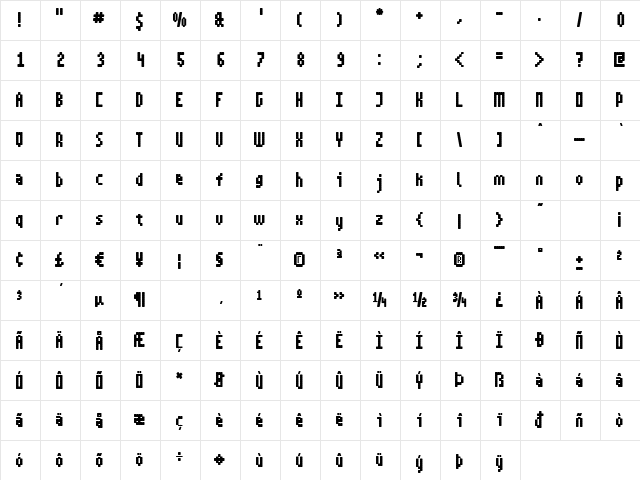
ZEro Bold
Design Context for ZEro Typeface
ZEro is a composed and adaptable typeface that performs quietly and consistently across a wide range of design contexts. Its bold stroke weight gives it real presence on the page.